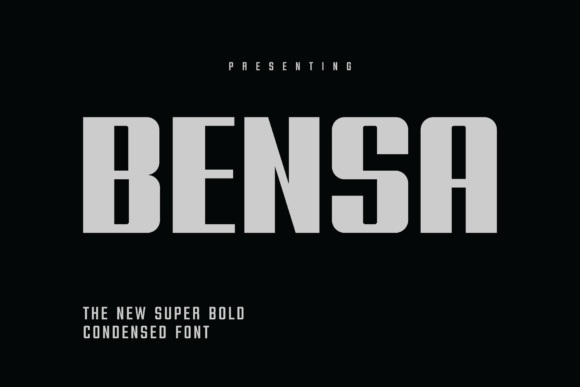
Unleash Your Design’s Potential with Bensa Font
In the world of typography, fonts play a crucial role in conveying messages, expressing emotions, and creating a lasting impression. For designers and crafters looking to make a bold statement, the Bensa font is an excellent choice. This super bold, condensed sans serif font is specially designed to grab attention and leave a lasting impact.
The Power of Bensa Font
Bensa is not just another font; it’s a design powerhouse. Its thick lines, sharp edges, and strong, modern vibe make it perfect for bold messages, powerful branding, and headlines that demand attention. Unlike other fonts that whisper, Bensa roars, ensuring your message is heard loud and clear. Whether you’re working on a logo, a poster, or a website, Bensa’s commanding presence will elevate your design to new heights.
Key Features of Bensa Font
• Super Bold: Bensa’s boldness is its most striking feature. It’s designed to stand out, making it ideal for headlines, titles, and any text that needs to grab attention.
• Condensed: The condensed style of Bensa allows for more text to be fitted into a smaller space without compromising readability. This makes it perfect for designs where space is limited but impact is crucial.
• Sans Serif: The clean, sans serif design of Bensa gives it a modern and sleek look, making it versatile for a wide range of design projects.
• Sharp Edges: The sharp edges of Bensa add to its bold and modern aesthetic, giving it a cutting-edge look that’s sure to turn heads.
Applications of Bensa Font
Bensa’s versatility and impact make it suitable for a variety of design projects. Here are some of the best applications for Bensa font:
• Headlines and Titles: Bensa is perfect for creating eye-catching headlines and titles that demand attention.
• Logos and Branding: For businesses looking to make a bold statement, Bensa can be a great choice for logos and branding materials.
• Posters and Flyers: Bensa’s boldness and readability make it ideal for posters and flyers that need to communicate a message quickly and effectively.
• Web Design: Bensa can add a modern and impactful touch to website headers, banners, and other design elements.
Tips for Using Bensa Font Effectively
While Bensa is a powerful font, it works best when used thoughtfully. Here are some tips for using Bensa effectively in your designs:
• Use it Sparingly: Due to its boldness, Bensa can be overwhelming if overused. Use it for key messages or headlines and opt for simpler fonts for body text.
• Contrast is Key: Ensure there’s enough contrast between the text and background to make your Bensa text stand out even more.
• Consider Your Audience: While Bensa is great for grabbing attention, ensure it aligns with your audience’s expectations and your brand’s voice.
Bensa font is a game-changer for designers and crafters looking to add a bold and modern touch to their projects. Its super bold, condensed sans serif design, sharp edges, and strong vibe make it the perfect choice for making a loud statement. By understanding its features, applications, and best practices for use, you can harness the full potential of Bensa to elevate your designs and make them truly unforgettable.